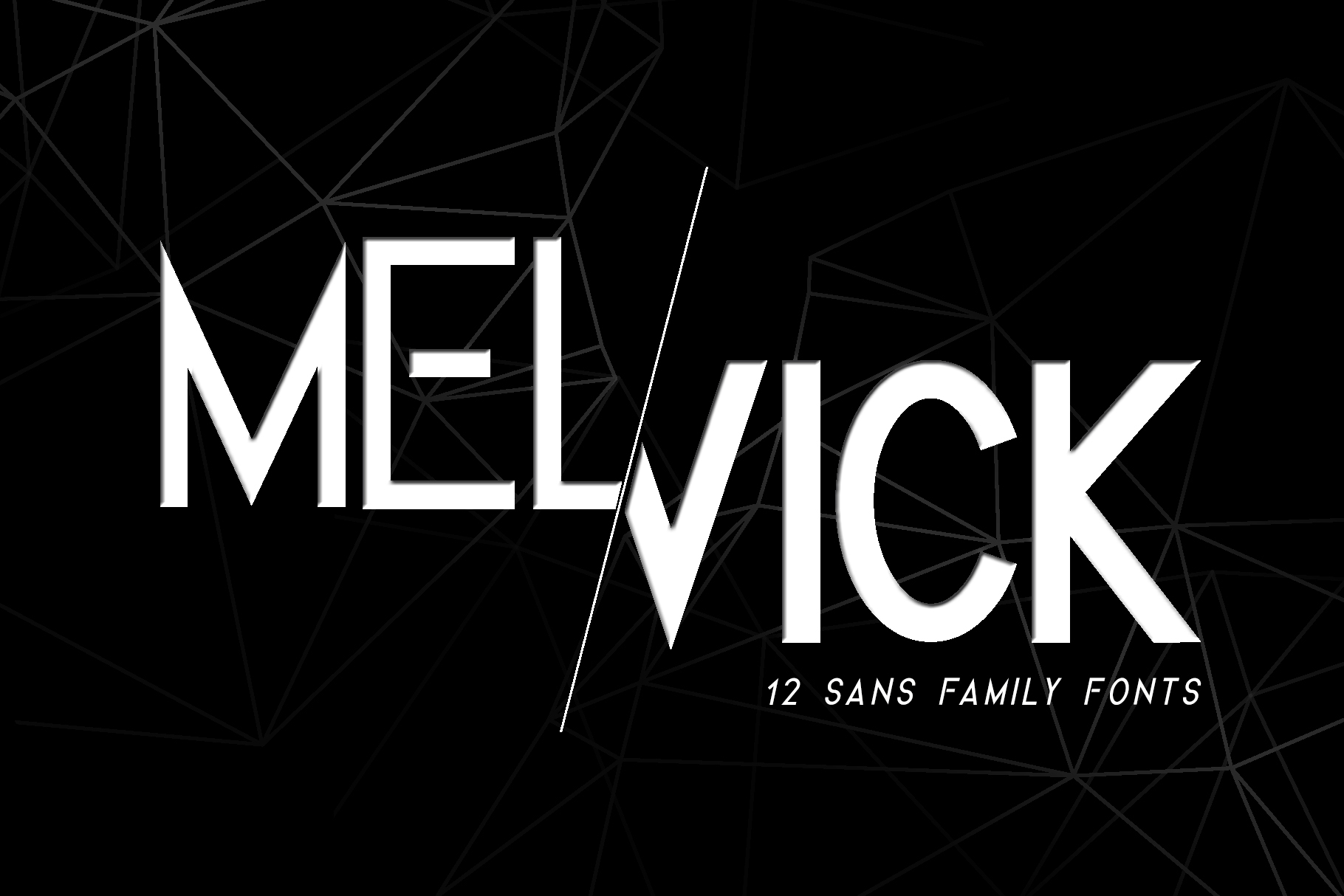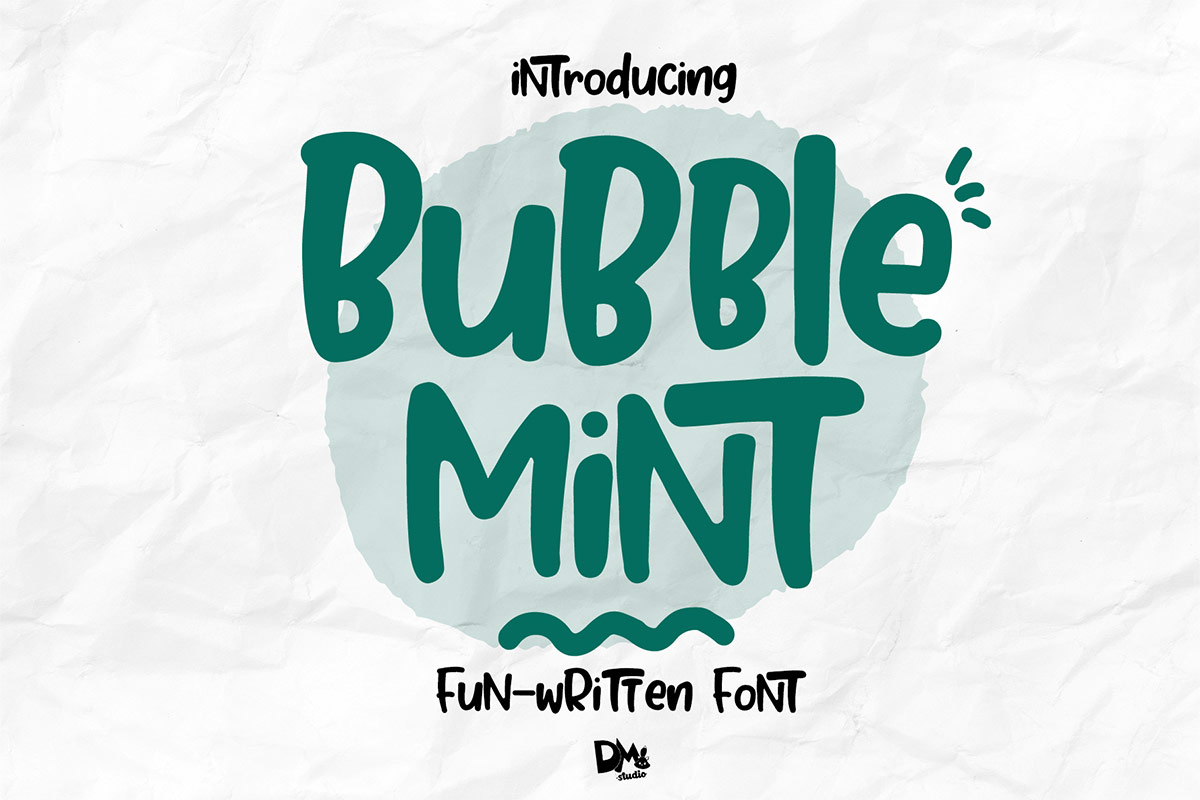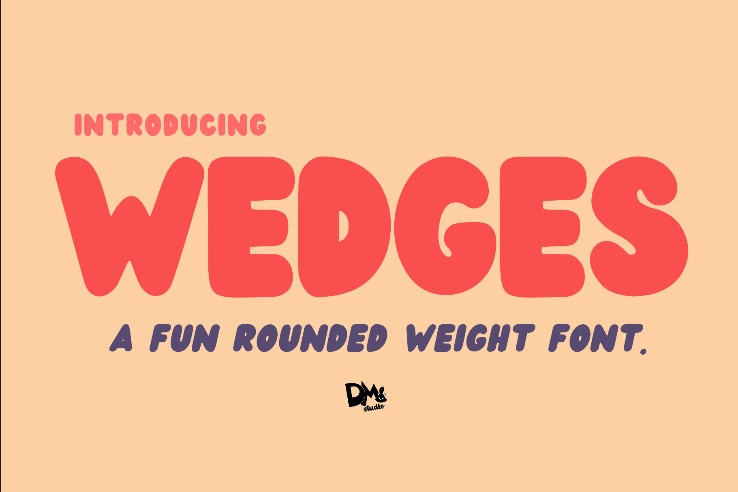
Dip, Crunch, Repeat: Naming Your Appetizer Business the Right Way
Why Your Appetizer business name ideas Matters
Looking for the perfect appetizer business name ideas? Whether you’re launching a pop-up snack bar, catering service, or mobile food truck, the name you choose sets the tone for your brand. In the competitive world of food and beverage, a memorable name doesn’t just attract hungry customers it helps you stand out, spark interest, and inspire trust.
In this guide, we’ll serve up appetizer business name ideas that are clever, catchy, and crafted with branding in mind. You’ll also get inspiration from trending font pairings like the fun, modern combos shown in our featured image to help visualize your name on signage, menus, and social media.
Tasty & Trendy Appetizer Business Name Ideas
Your business name should reflect your menu style, audience, and vibe. Here are some categories of appetizer business name ideas:
Playful & Fun Names
• Dip & Dash
• The Crunch Cart
• Snack Me Silly
• Roll With It
• Nacho Average Bites
These names use humor and wordplay, which are perfect for brands with a lighthearted, casual tone.
Elegant & Gourmet Names
• Appétit Bite
• The Petite Plate
• Crave + Charcuterie
• First Taste Co.
• Haute Hors D’oeuvres
For upscale or artisanal appetizer businesses, these appetizer business name ideas bring a polished, culinary feel.
Cultural & Thematic Names
• Mezze Magic
• Dim Sum & Then Some
• Tapas Trolley
• Snackari (Indian fusion)
• Global Grazing
Infuse culture into your brand by choosing names that reflect your roots or your global taste adventures.
Font Pairings for Appetizer Business Name Ideas Branding
The fonts in your logo or packaging bring your brand identity to life. Based on the image you provided, here are some standout font pairings ideal for appetizer business name ideas:
Bubble Mint + Melvick
Use for fun, family-friendly snack shops or mobile carts.
💡 Example: “Snack Me Silly” in Bubble Mint with Melvick for the tagline: Fast, Fresh & Fun!
Bright South + King Odessar
Ideal for elegant catering or charcuterie services.
💡 Example: “Appétit Bite” in Bright South with a hand-drawn King Odessar accent for Bespoke Appetizers.
Wedges + Butterfly Signature
Modern and clean perfect for delivery-based or subscription snack boxes.
💡 Example: “Dip & Dash” in Wedges with Buttefly Signature font for Speedy Snack Packs.
These font pairings help bring your appetizer business name ideas to life in visual branding, menus, and marketing.
Branding Tips for Appetizer Business Name Ideas
Keep It Snack-Sized and Sticky
Short, memorable names like “Crave Co.” or “Chomp” tend to stick better with customers just like your appetizers should.
Use Keywords or Food Puns
Play around with food terms, textures (crunchy, creamy), or meal moments (first bite, happy hour). Examples:
• “Happy Hour Bites”
• “Crunch Culture”
• “Skewered & Sauced”
Domain and Social Media Availability
Check if your favorite appetizer business name idea is available as a domain or social handle. You want brand consistency across platforms.
Real-Life Appetizer Business Name Ideas Examples for Inspiration
Local Bite Pop-Up
An Indonesian street food brand named “Rasa Mini”—uses local slang and a modern handwritten font to feel both authentic and trendy.
The Dip Collective
A subscription box in the U.S. with a minimalist black-and-white brand kit and geometric sans-serif logo.
Graze & Glaze
An upscale charcuterie and hors d’oeuvre caterer using earthy tones and elegant font pairings to signal premium service.
20 Bonus Appetizer Business Name
1. First Bite Co.
2. Tapas on Tap
3. Bites & Delights
4. The Appy Place
5. The Little Skewer
6. Cheesy Charm
7. Bite Bazaar
8. Saucy Skewers
9. Plated Petite
10. Appy Hour
11. Zesty Tray
12. Crunch Garden
13. Mini Munch
14. Appie Avenue
15. Flavor First
16. Dipper’s Delight
17. The Antipasto Spot
18. Crispy Fix
19. Saucy & Small
20. The First Fork
These ideas are perfect to explore with the font pairings discussed above, helping you establish a consistent visual brand.
How to Test Your Business Name
Before you commit, run your appetizer business name idea through this quick checklist:
• Easy to pronounce and spell
• Not already trademarked
• Available as a .com or relevant domain
• Reflects your food or values
• Works with your font/logo ideas
• Gets good feedback from target customers
Conclusion: From Name to Fame Make It Delicious
The journey of building a brand starts with a name that excites, entices, and endures. Whether you go bold, elegant, funny, or globally inspired, your appetizer business name idea is the first bite your customer takes into your business.
Now go ahead dip, crunch, repeat and launch your delicious dream.